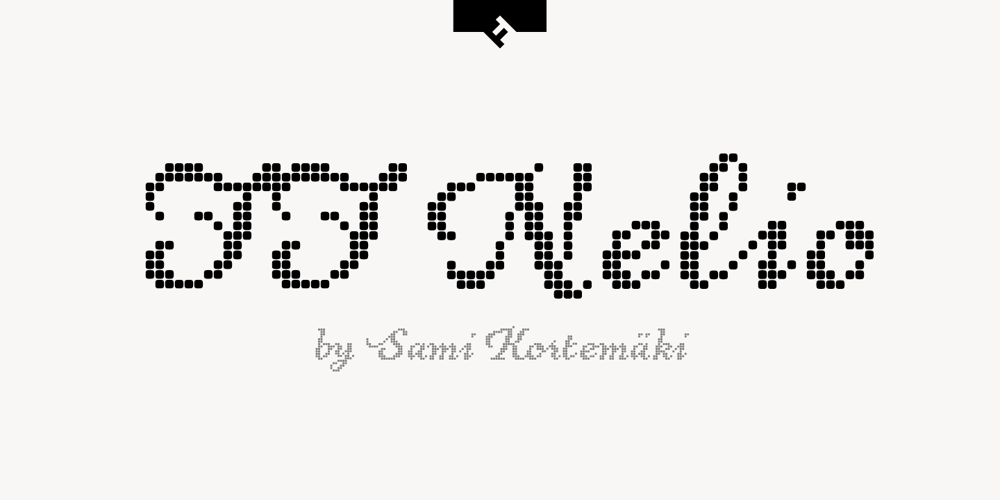
FF Nelio
FF Nelio font
FF Nelio Font Family was designed by Sami Kortemäki and published by FontFont. FF Nelio contains 7 styles and family package options. Finnish type designer Sami Kortemäki created this display and script FontFont in 2001. The family has 7 weights, ranging from Light to Regular and is ideally suited for festive occasions, film and tv, music and nightlife, poster and billboards as well as software and gaming. FF Nelio provides advanced typographical support with features such as ligatures, alternate characters, case-sensitive forms, and stylistic alternates. It comes with proportional oldstyle figures.